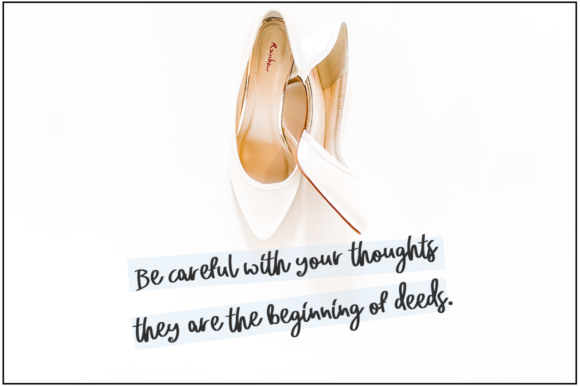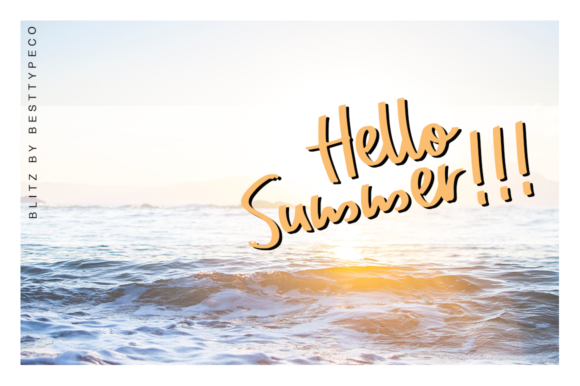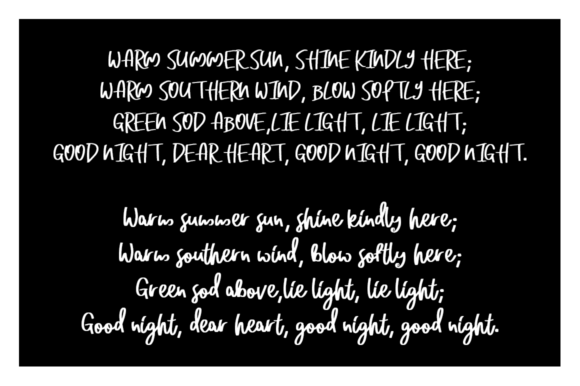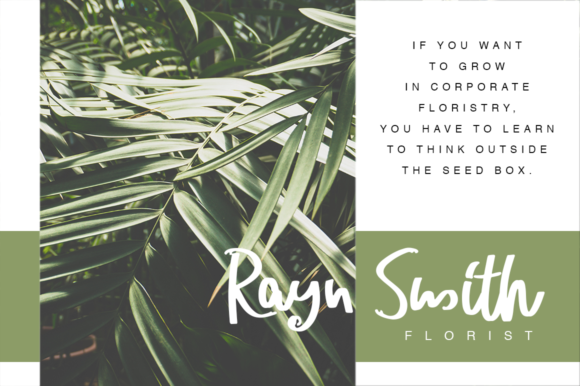
Introducing Blitz Font: The Ultimate Game-Changer for Designers and Crafters
Are you tired of using the same old fonts for your design projects? Look no further! Blitz Font is here to revolutionize the way you approach typography. This fun and fresh handwritten font is packed with a unique look that will instantly elevate your designs and make them stand out from the crowd.
The Perfect Blend of Fun and Sophistication
Blitz Font is the perfect blend of fun and sophistication, making it an ideal choice for designers and crafters who want to add a personal touch to their work. Its unique and quirky style is sure to capture the attention of your audience and leave a lasting impression. Whether you’re working on a branding project, a social media post, or a craft project, Blitz Font is the perfect choice.
What Sets Blitz Font Apart
So, what sets Blitz Font apart from other fonts on the market? Here are just a few reasons why designers and crafters are falling in love with this amazing font:
- Unique and Handwritten Style: Blitz Font boasts a truly unique and handwritten style that is sure to add a personal touch to any design project.
- Fun and Fresh: This font is perfect for designers and crafters who want to add a bit of fun and whimsy to their work.
- Highly Versatile: Blitz Font can be used for a wide range of design projects, from branding and advertising to social media and crafting.
- Easy to Read: Despite its playful style, Blitz Font is highly legible and easy to read, making it perfect for use in body text.
How to Use Blitz Font in Your Design Projects
Blitz Font is incredibly easy to use and can be incorporated into a wide range of design projects. Here are just a few ideas to get you started:
- Branding and Logo Design: Use Blitz Font to create a unique and memorable logo for your brand.
- Social Media Graphics: Add a personal touch to your social media posts with Blitz Font.
- Crafting and Scrapbooking: Use Blitz Font to add a bit of fun and whimsy to your crafting and scrapbooking projects.
- Advertising and Marketing: Use Blitz Font to create eye-catching ads and marketing materials.
Tips for Getting the Most Out of Blitz Font
Here are a few tips for getting the most out of Blitz Font:
- Experiment with Different Colors: Blitz Font looks great in a wide range of colors, so don’t be afraid to experiment and find the perfect hue for your design.
- Pair with Other Fonts: Blitz Font pairs well with a wide range of other fonts, so try combining it with other fonts to create a unique and interesting look.
- Use it Sparingly: While Blitz Font is a lot of fun, it can be overwhelming if used too much. Use it sparingly to create a focal point in your design.
Blitz Font is a game-changer for designers and crafters who want to add a bit of fun and whimsy to their work. Its unique and handwritten style, combined with its high versatility and ease of use, make it the perfect choice for a wide range of design projects. So why wait? Download Blitz Font today and start creating designs that truly stand out!